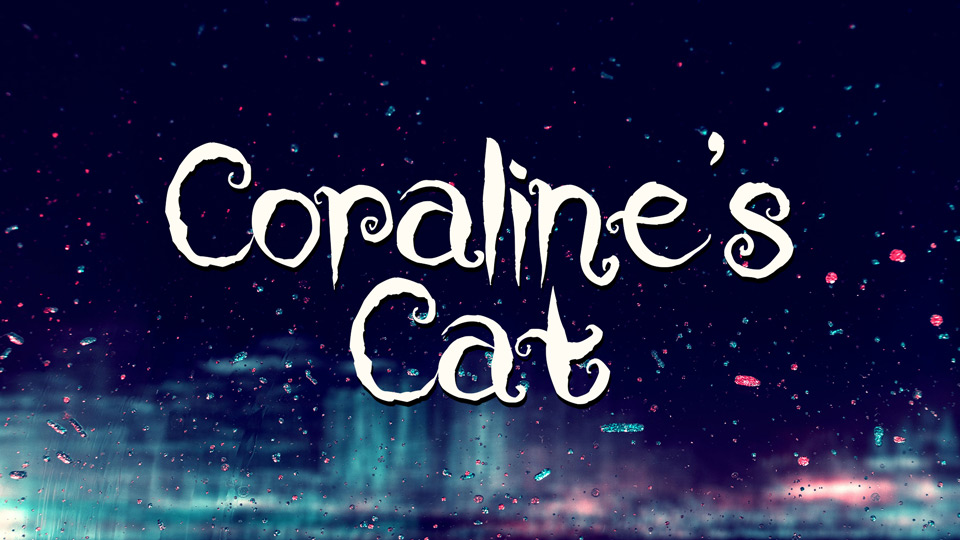
Download Coraline’s Cat font, a spooky typeface that embodies the playful spirit of Halloween with a handcrafted twist. Coraline’s Cat font allows you to infuse your designs with a sense of artistry and a lighthearted, Halloween-inspired spirit.
Designer: Sinister Fonts